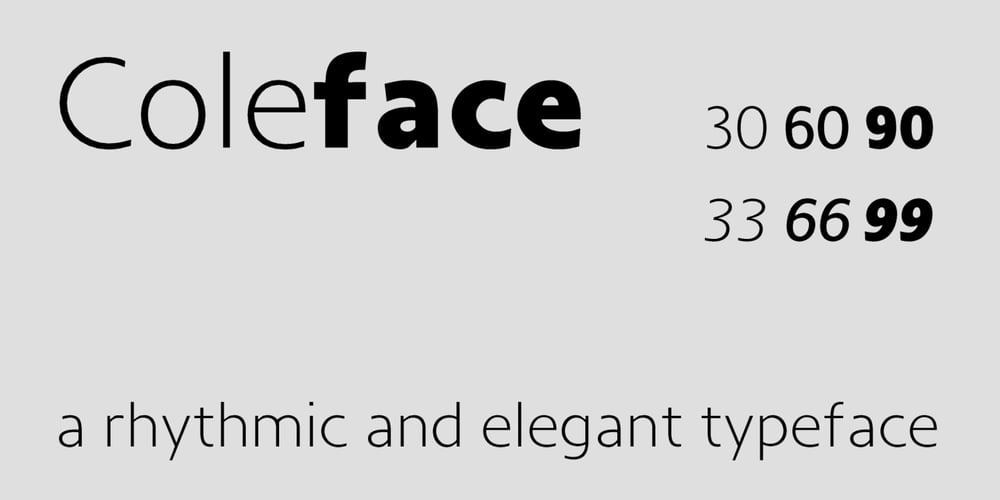
Coleface Font Family was designed by Roy Cole and published by Roy Cole. Coleface contains 6 styles and family package options. Coleface was created by the British typographer Roy Cole, completed shortly before his death in 2012. It comprises six fonts: Coleface 30, 60, 90 and the italics 33, 66, 99. As with his earlier typeface families – Lina, Zeta and Colophon – Coleface is a highly-readable sans serif typeface that offers significant flexibility in terms of its potential uses. Roy Cole studied typographic design under the tutelage of Emil Ruder at the Gewerbeschule in Basel, at a time when typographic history was being made through the creation of a style that epitomized modernity. Consequently the principles of order, simplicity and legibility, fused with experimentation, became a hallmark of his practice, as exemplified in his last font Coleface.